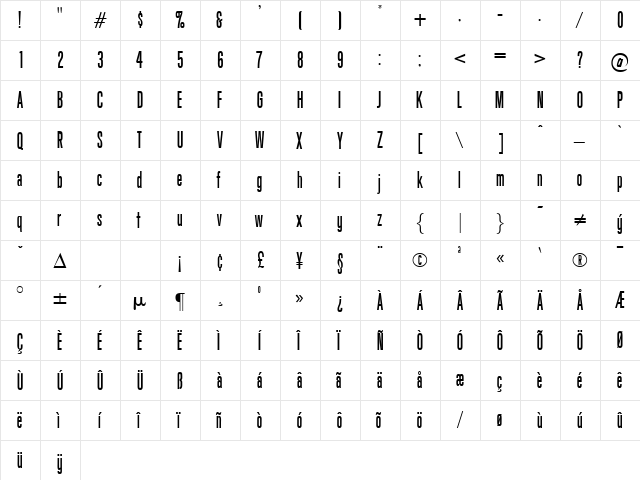
Goodge DB Regular
Design Context for Goodge DB Typeface
Goodge DB is a composed and adaptable typeface that performs quietly and consistently across a wide range of design contexts.